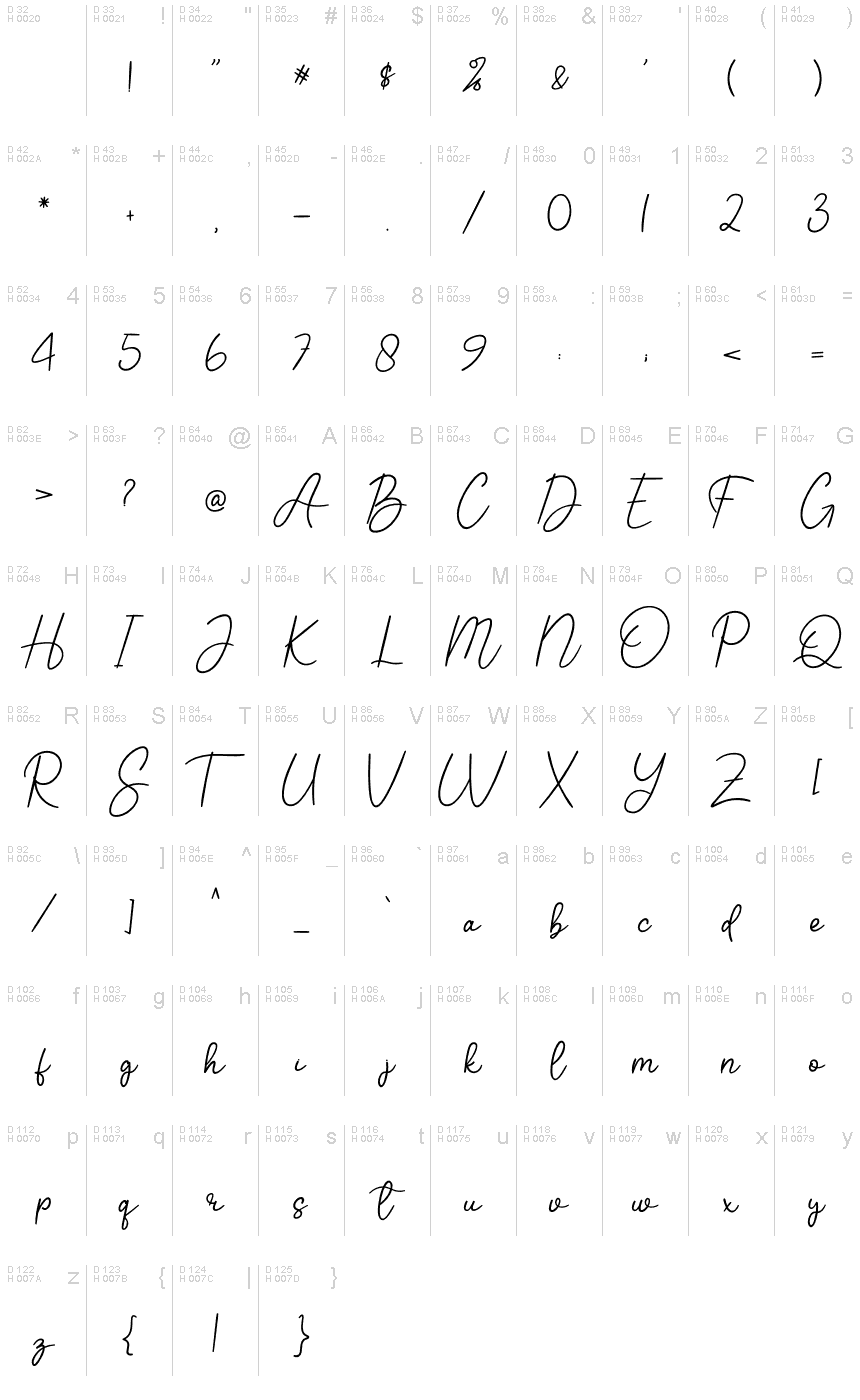
Rainbow Handmade
Rainbow Handmade, designed by Etik Fatimah, is a delightful handwritten font that adds a touch of whimsy to any project. With its extra-light weight, this font exudes elegance and grace.
Perfect for wedding invitations, greeting cards, and personal blogs, Rainbow Handmade brings a unique and charming aesthetic to your designs. Its playful strokes and organic feel make it an ideal choice for children's books or art-related projects.
Let your creativity shine with Rainbow Handmade's enchanting style that captures the essence of handmade craftsmanship.